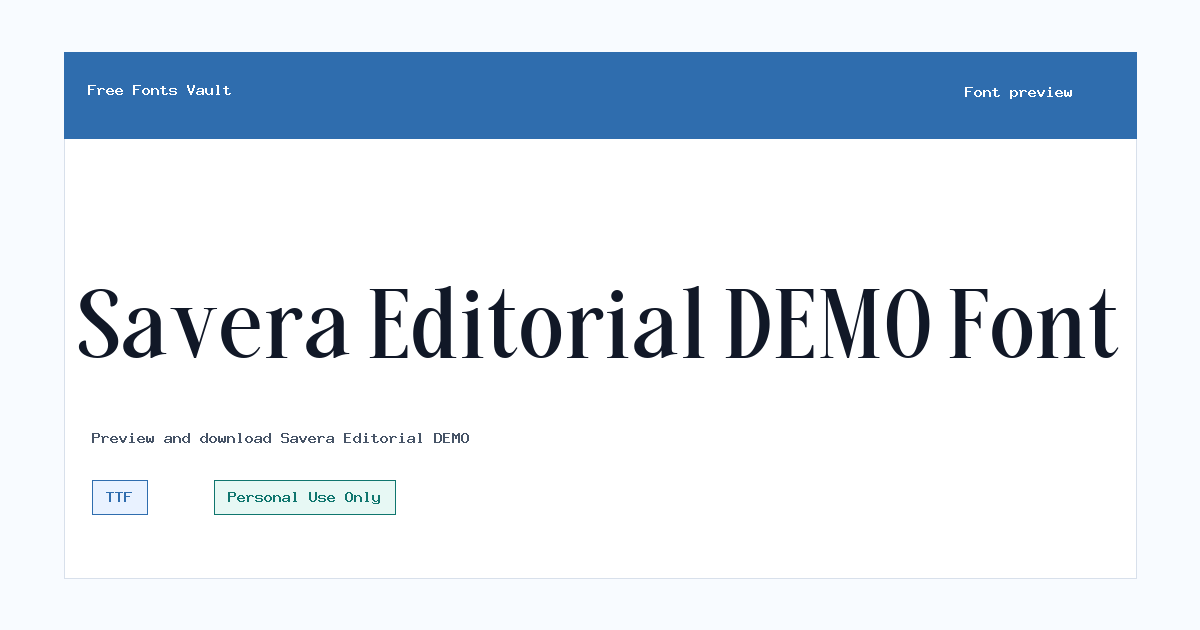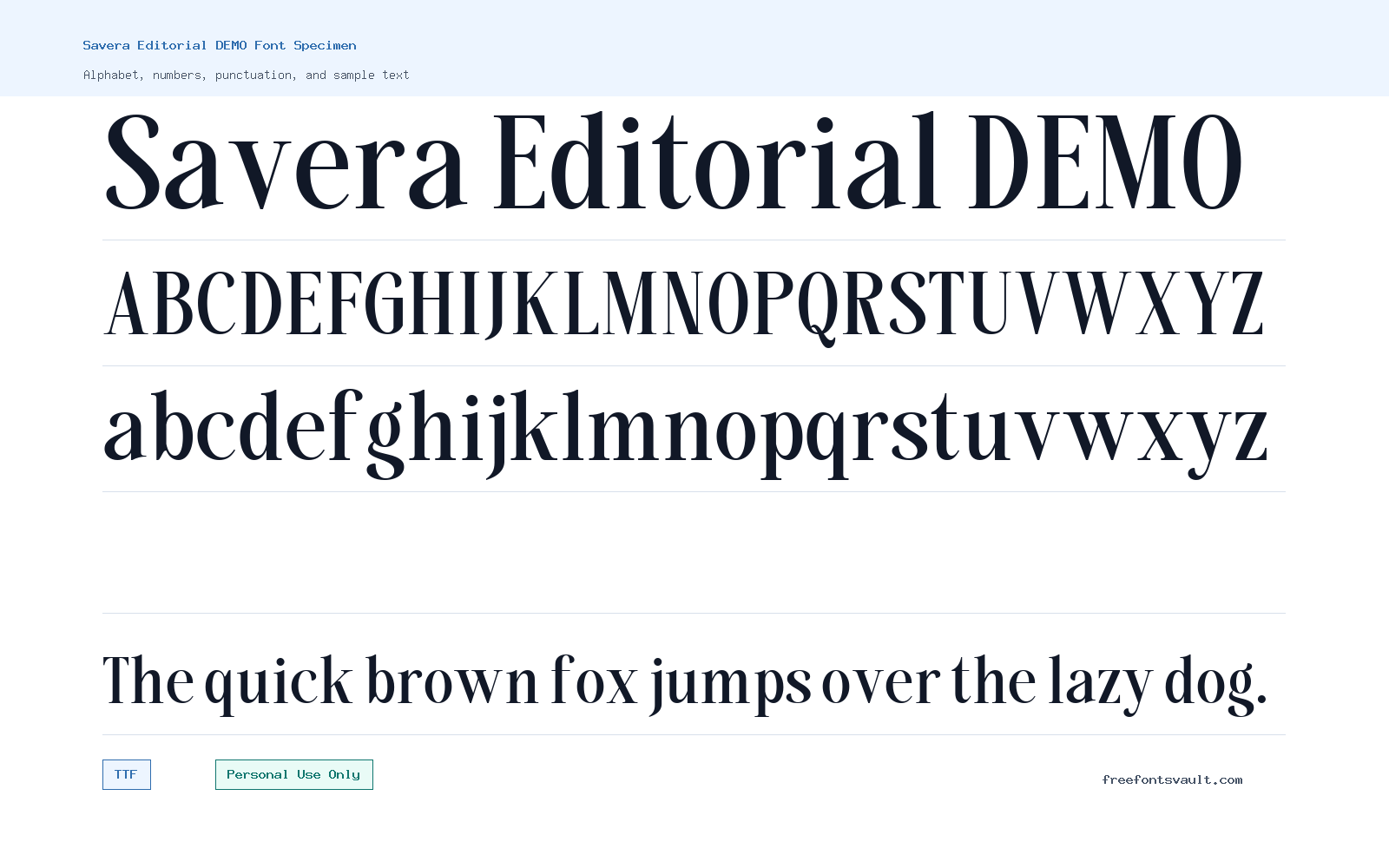
Savera Editorial DEMO
Savera Editorial DEMO font preview showing the family name
Savera Editorial DEMO Font
Savera Editorial DEMO font specimen showing alphabet, numbers, and sample text
• Designer Say Studio
Savera Editorial DEMO font.
Savera Editorial DEMO is a bold serif display font with an editorial feel, made for short pieces of text where the letterforms can stand out. It is best approached as a title, logo, poster, or layout-testing font rather than a long-reading body face.
About Savera Editorial DEMO
Savera Editorial DEMO comes in a bold TTF font file with a normal style and 700 weight. Its name points toward an editorial serif direction, so it fits the kind of work where a designer wants a confident headline, magazine-style title, cover concept, or brand mockup. Because only one bold demo style is present, the font is most useful when you need one strong display voice instead of a full text family with multiple weights.
Use the preview tool to test the exact words you plan to set before downloading. Bold serif fonts can look excellent in short names, section headers, poster lines, packaging studies, and social graphics, but they may feel heavy if used for long paragraphs or small navigation text. Try uppercase and title case, then check spacing around narrow letters, punctuation, and repeated characters. If you are testing logo work, view the name at several sizes so you can judge whether the details still read cleanly on a small screen.
For poster and editorial mockups, Savera Editorial DEMO should work best when it has room to breathe. Give the letters enough line height and margins, especially in stacked headlines. Pair it with a quiet sans serif for captions, credits, dates, and supporting text so the bold serif can remain the main visual element. A neutral grotesque, humanist sans, or simple geometric sans can help balance the display style without competing for attention.
• Bold serif demo style with a 700 font weight
• Suited to display typography rather than long body text
• Useful for testing editorial titles, poster lines, logo concepts, and brand mockups
• Single available style, so pairing with a supporting sans serif is recommended
• Magazine-style headlines and editorial cover concepts
• Poster titles, event graphics, and short display text
• Logo drafts, wordmark experiments, and brand presentation mockups
• Fashion, culture, portfolio, or creative layout tests where a bold serif is needed
• Web and social media mockups that need a strong title font
The designer is listed as Say Studio. No foundry name or designer website is confirmed in the available font details.
What kind of font is Savera Editorial DEMO?
It is a bold serif demo font intended for display-style use, such as headlines, posters, logo drafts, and editorial layouts.
Is this a good font for body text?
It is better for short display text. For paragraphs, pair it with a more neutral and readable text font.
Who designed Savera Editorial DEMO?
The designer is listed as Say Studio.